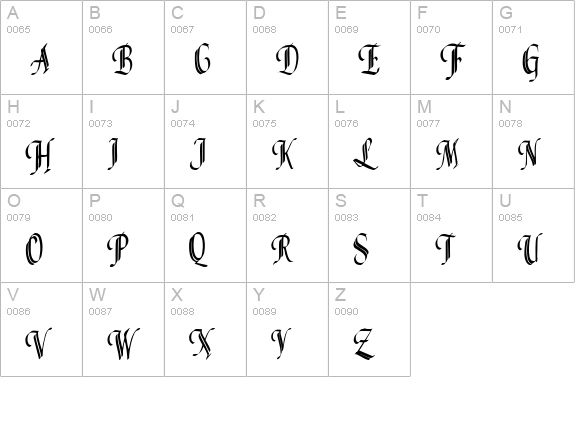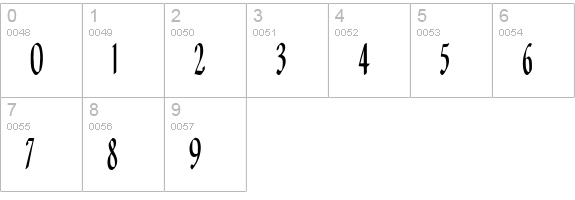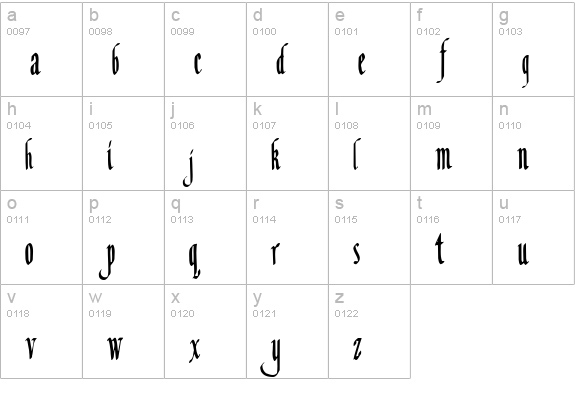
Concordia Text Font Details
Concordia Text font is a modern and stylish typeface that combines elegance with clarity, making it perfect for a wide range of design projects. With its clean lines and balanced proportions, Concordia Text exudes professionalism and sophistication. The font's versatility makes it suitable for both digital and print applications, from websites to brochures to branding materials. What sets Concordia Text apart is not only its timeless design but also its accessibility. This high-quality font is available for free download at FontsMarket.com, making it a valuable resource for designers, students, and anyone looking to elevate their projects with a touch of class. Whether you're creating a logo, designing a website, or crafting a publication, Concordia Text font is sure to enhance the visual impact of your work. Download it today and experience the power of this exceptional typeface.